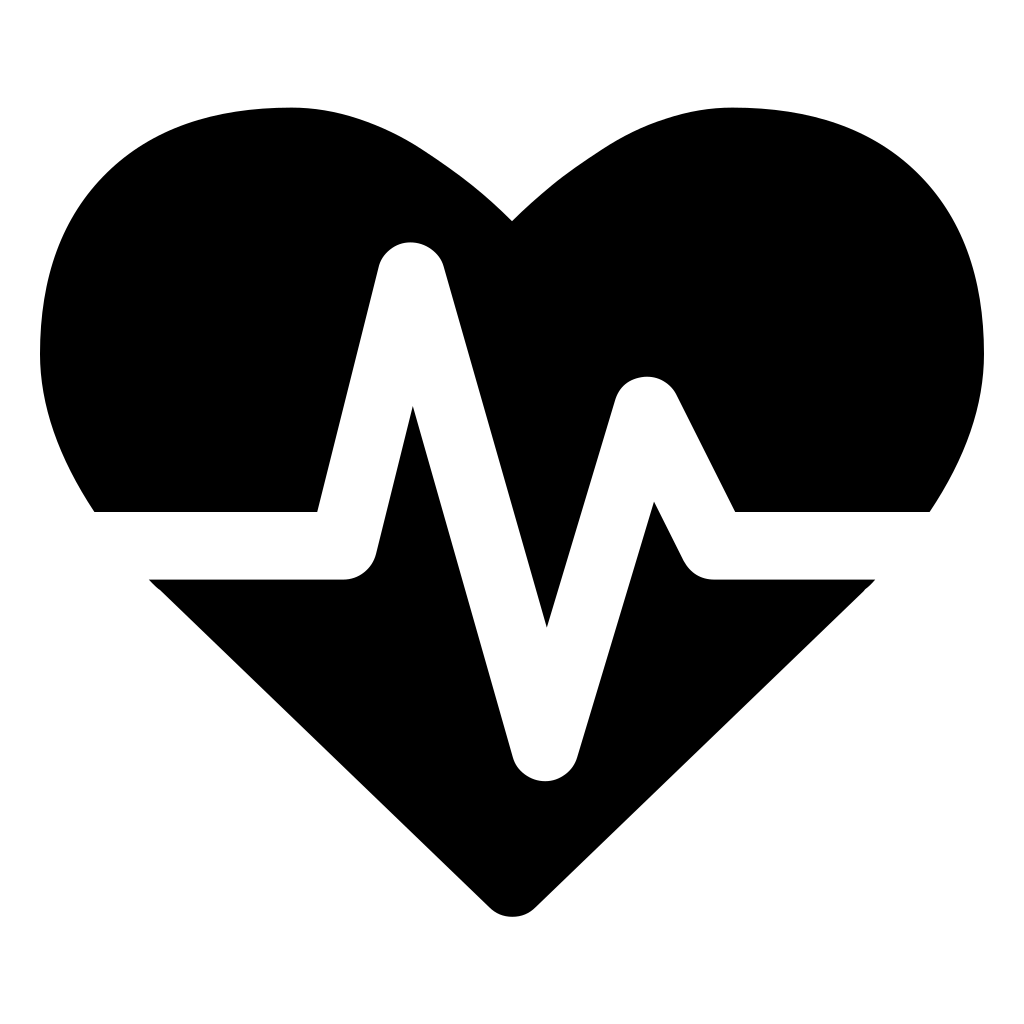
Font Awesome Heartbeat Icon
Font Awesome Heartbeat Icon. Font awesome is the internet's icon library and toolkit used by millions of designers, developers, and. Heart pulse in the solid style.
Heart pulse in the solid style. Hand holding heart icon is given below. You can use this icon on the same way in your project.
Heart In The Solid Style.
Heart icon is given below. The world’s most popular and easiest to use icon set just got an upgrade. You can use this icon on the same way in your project.
Heart Pulse Icon Is Given Below.
Heart pulse in the solid style. Try font awesome 6 with the all new thin style. Font awesome is the internet's icon library and toolkit used by millions of designers, developers, and content creators.
Make A Bold Statement, Even In Small Sizes.
Web application icons, medical icons after you get up and running , you can place font awesome icons. Font awesome kiss wink heart icon can be resized as per your need. Font awesome is the internet's icon library and toolkit used by millions of designers, developers, and content creators.